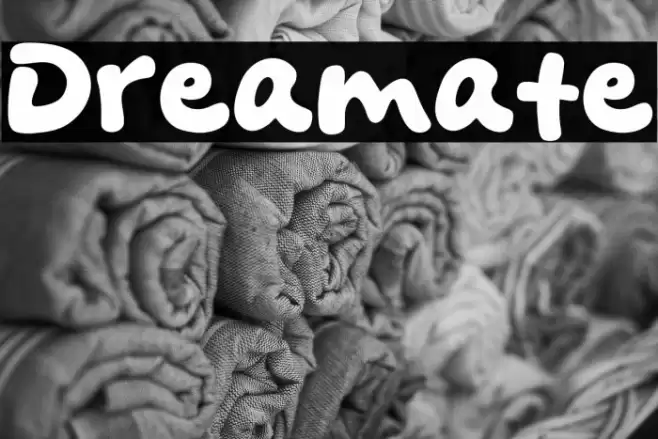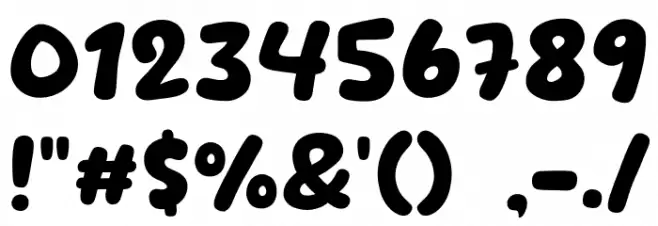
Dreamate Font
Dreamate Description
This playful and bold font features rounded, thick strokes that give it a friendly and approachable appearance. The characters are slightly irregular, adding a whimsical touch that makes it stand out. Its boldness ensures high readability, while the rounded edges soften its overall look. The font maintains a consistent weight throughout, providing a cohesive and uniform appearance. It's perfect for projects that require a fun and informal tone, such as children's books, playful branding, or casual invitations.
A playful, bold font with rounded, thick strokes and a whimsical touch from Uncategorized fonts.
- Proposed Projects: Ideal for children's books, playful branding, casual invitations, and fun posters.
- Overall Style: Playful